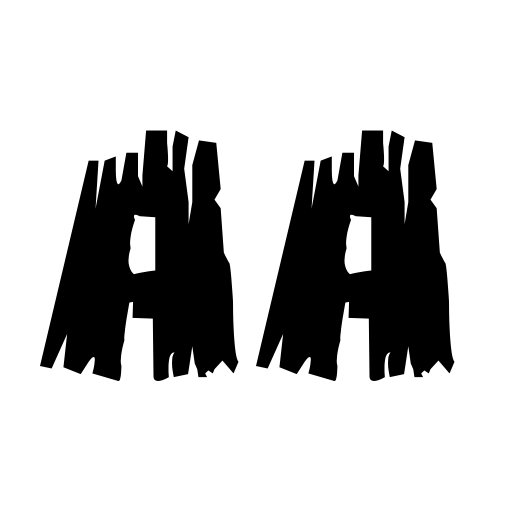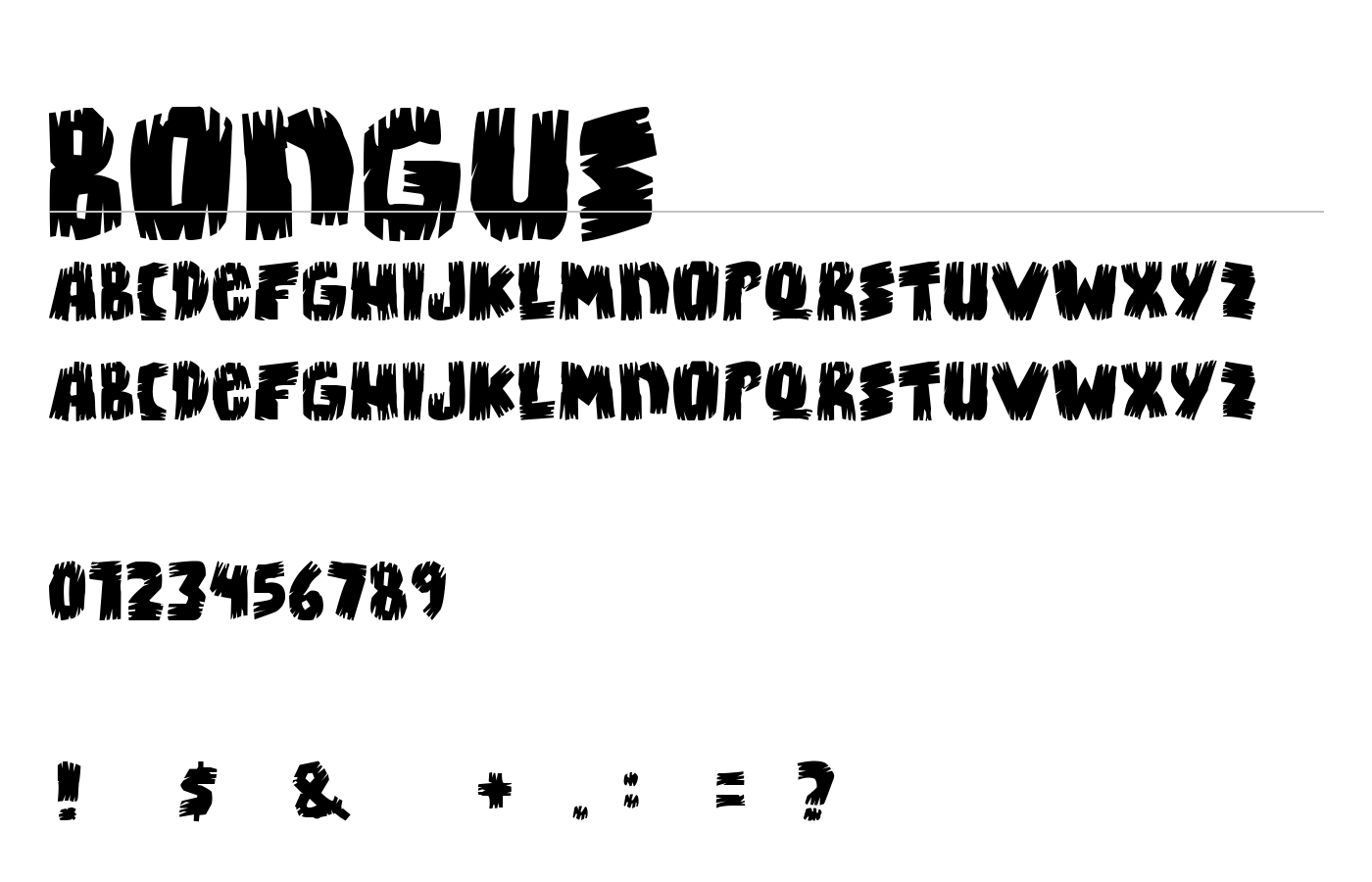
Bongus is a bold, condensed sans serif font with a rugged, hand-carved texture that gives it a striking and edgy personality. Its irregular, jagged strokes and high contrast between thick and thin marks create a dynamic, energetic feel, making it ideal for eye-catching headlines, posters, and branding that seeks a bold, adventurous vibe. This font works best where a strong, informal impact is needed, adding character and attitude to creative projects.
Bongus Font